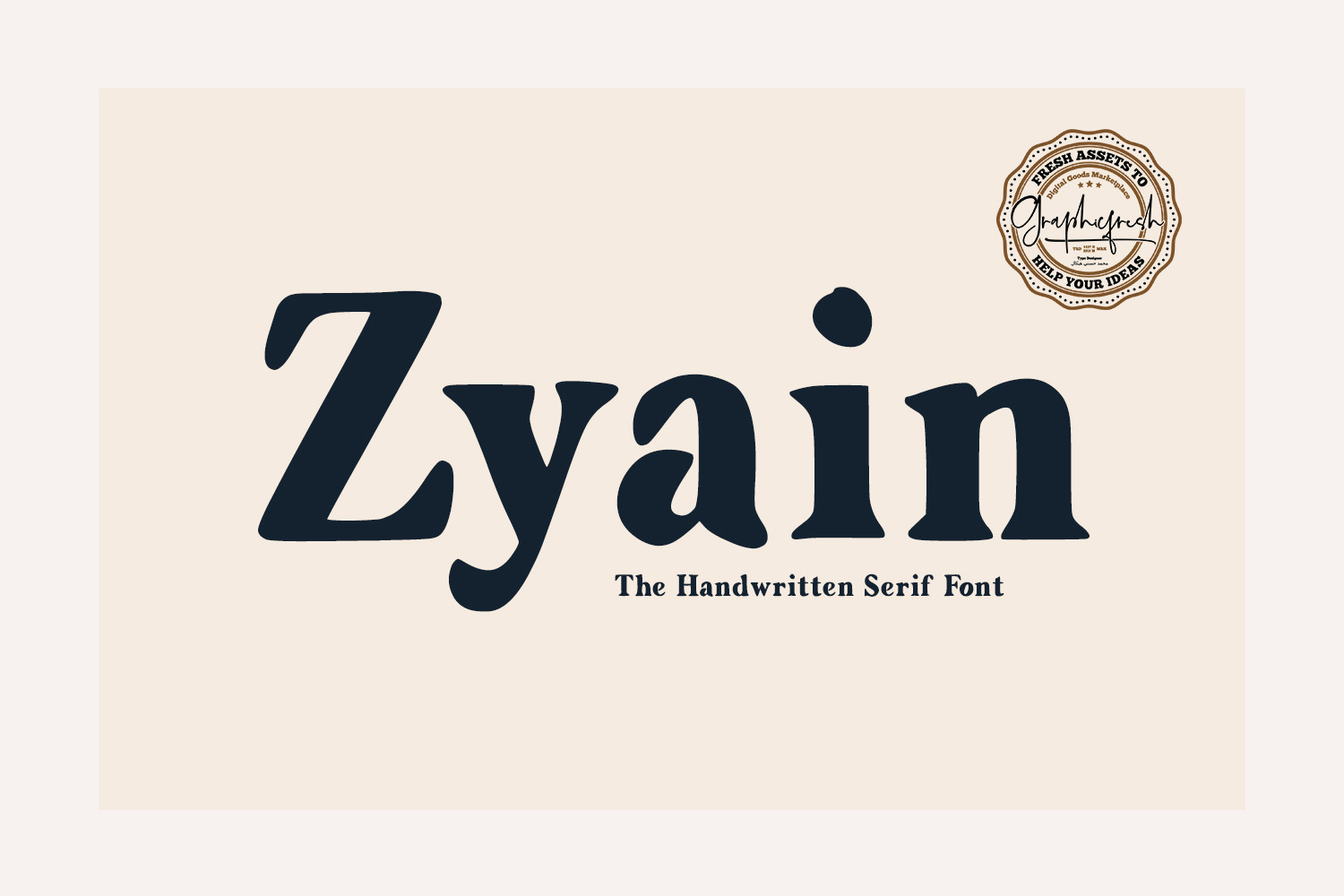
Zyain - The Handwritten Serif Font
This font we made is very simple, so you will make it easier for the eyes to read the writing. The flagship for this font is made by hand, so it's not like other fonts. Each letter is made very carefully.
Zyain - The Handwritten Serif Font
Zyain - The Handwritten Serif Font. It comes with an elegant, cute and feminine style which is perfect to make any design stand out! This font is perfect for branding, wedding invites, magazines, mugs, business cards, quotes, posters, and more.
- Suitable for Headlines, Logotypes, Signs, Posters, Letterhead, T-Shirt and many more.